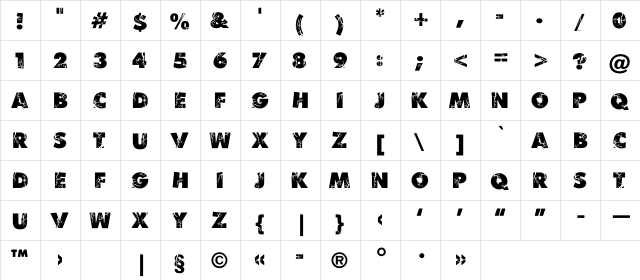
BenCrushC Regular Font Preview
BenCrushC Regular
BenCrushC Regular Font Details
Design Context for BenCrushC Typeface
BenCrushC is a composed and adaptable typeface that performs quietly and consistently across a wide range of design contexts.